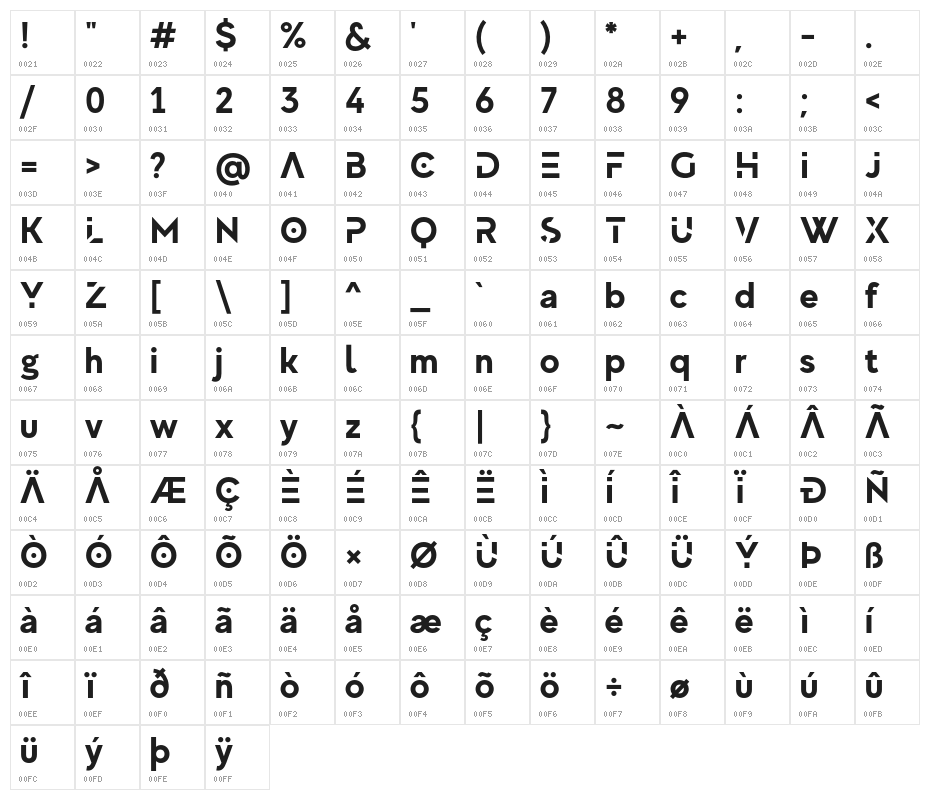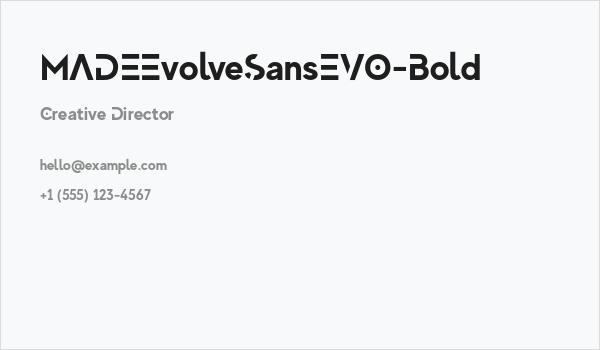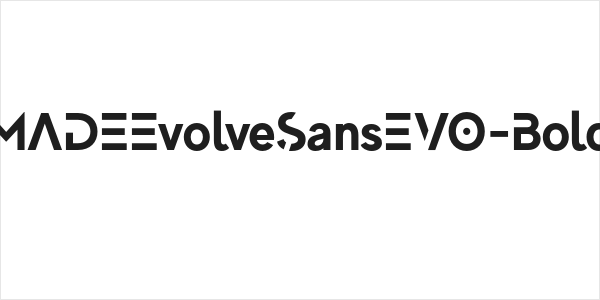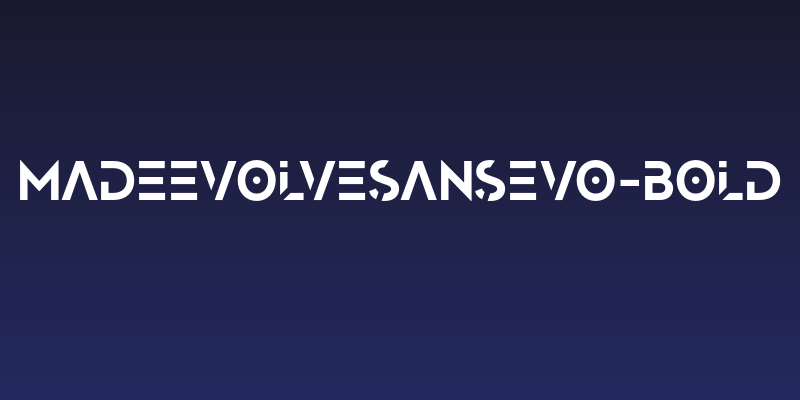
MADEEvolveSansEVO-Bold Font
MADEEvolveSansEVO-Bold Description
This font features a bold, geometric sans-serif style with a modern and clean aesthetic. The uppercase letters exhibit a strong presence with sharp angles and a consistent stroke width, creating a sense of stability and confidence. The lowercase letters maintain a similar geometric structure, offering a harmonious balance between the two cases. Numbers are bold and clear, ensuring readability. Special characters are designed to complement the overall style, maintaining the geometric and bold characteristics. This font is versatile, suitable for a variety of design projects that require a contemporary and impactful look.